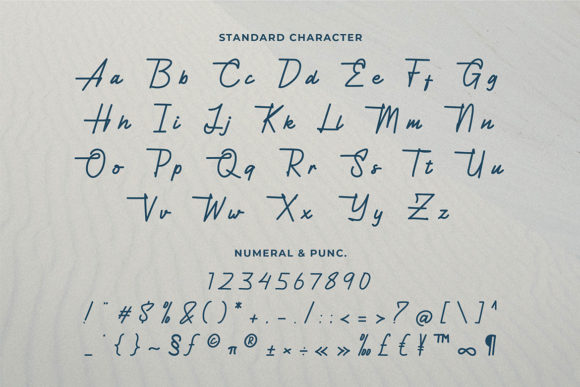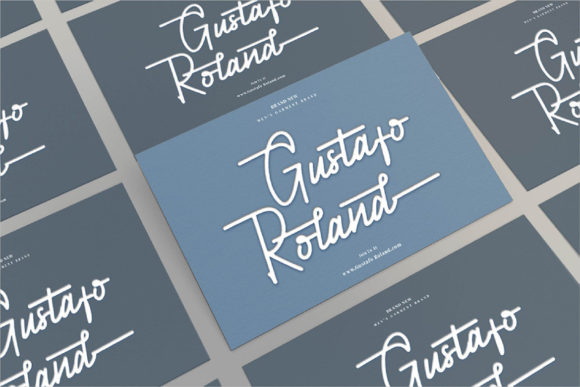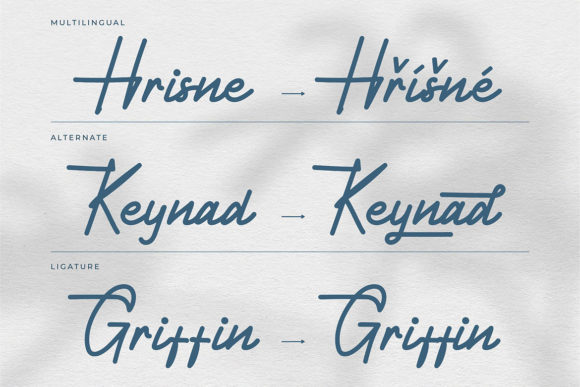
Introduction to Archimelo Font
Archimelo is a handwritten signature script with a natural & stylish flow.
This font is good for logo design, Social media, Movie Titles, Books Titles, short text even long text letters, and good for your secondary text font with sans or serif .
Key Features of Archimelo Font
Why Choose Archimelo Font?
Archimelo Font offers exceptional quality and versatility, making it a valuable addition to your design toolkit. Whether you’re creating for personal projects or commercial use, Archimelo Font delivers professional results.